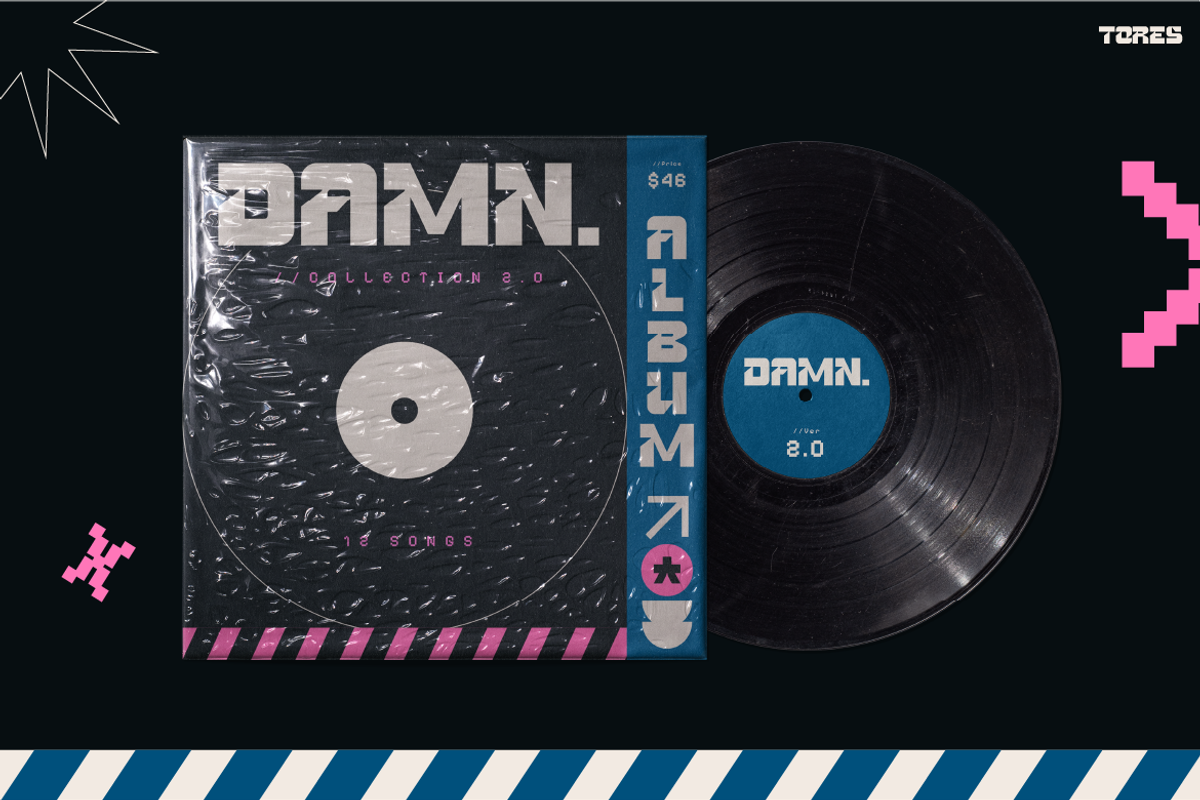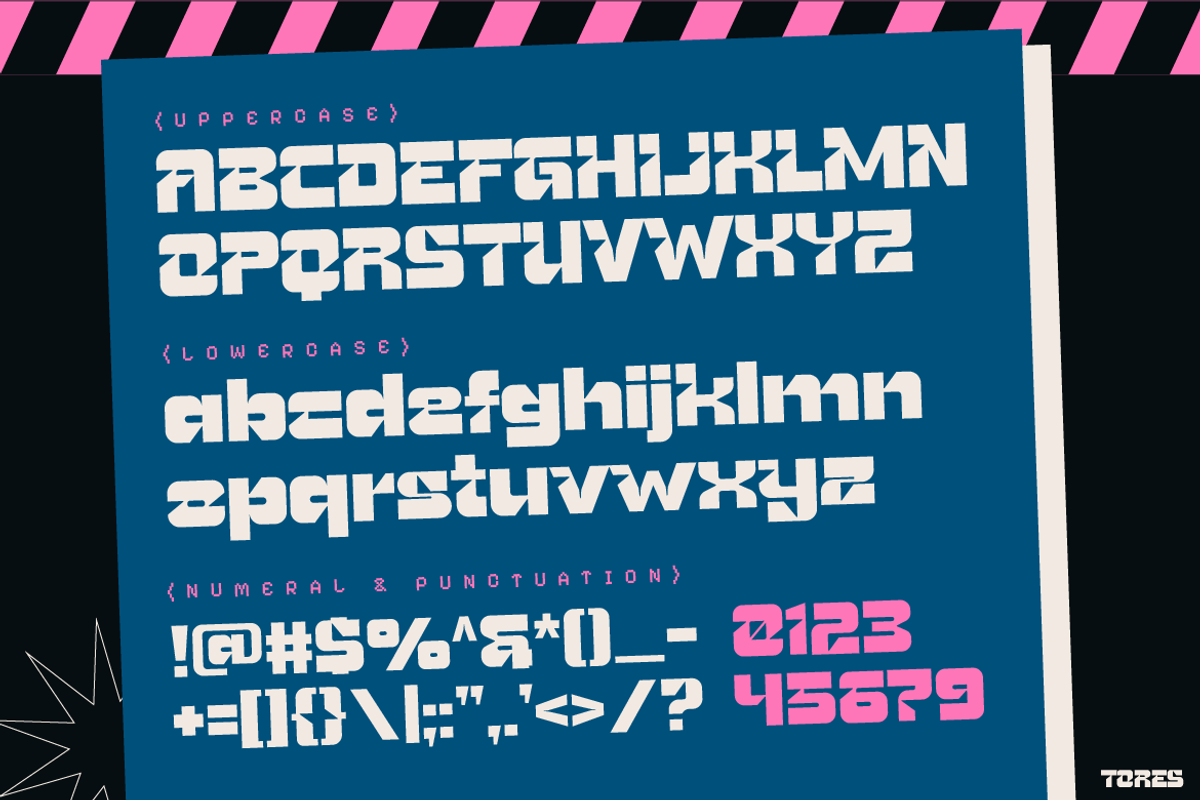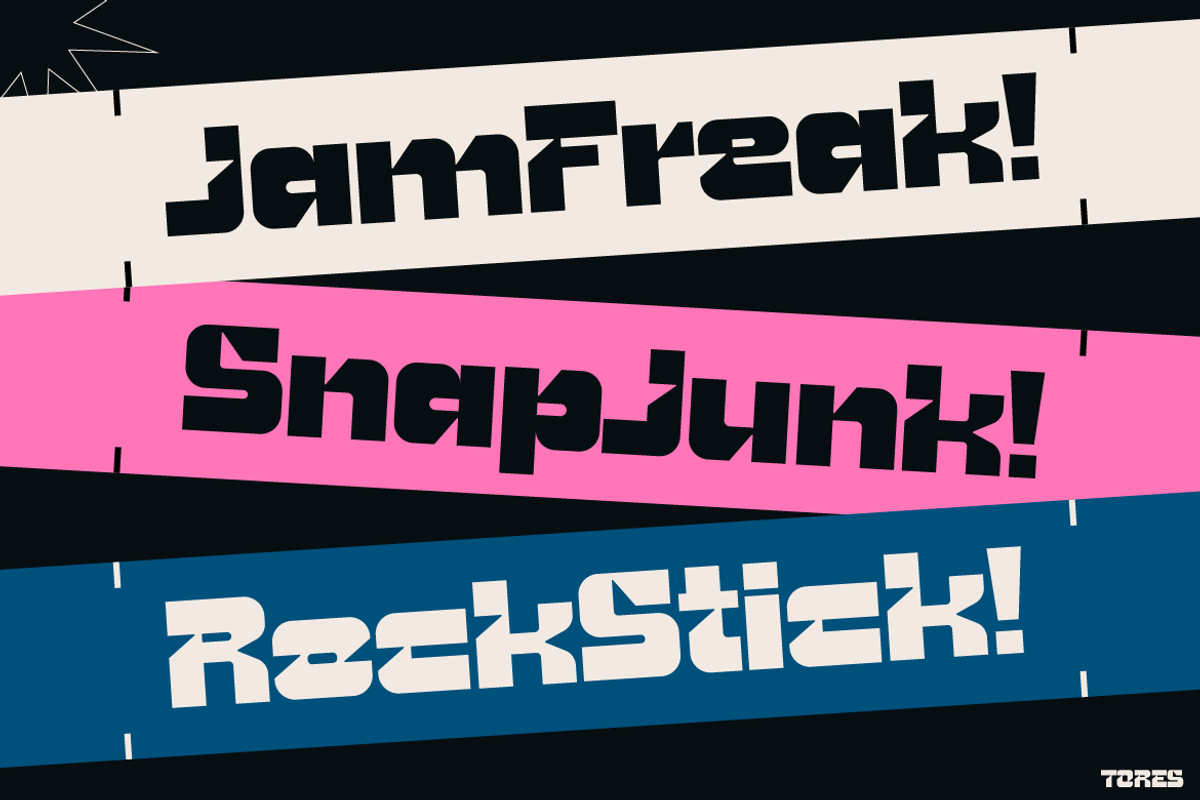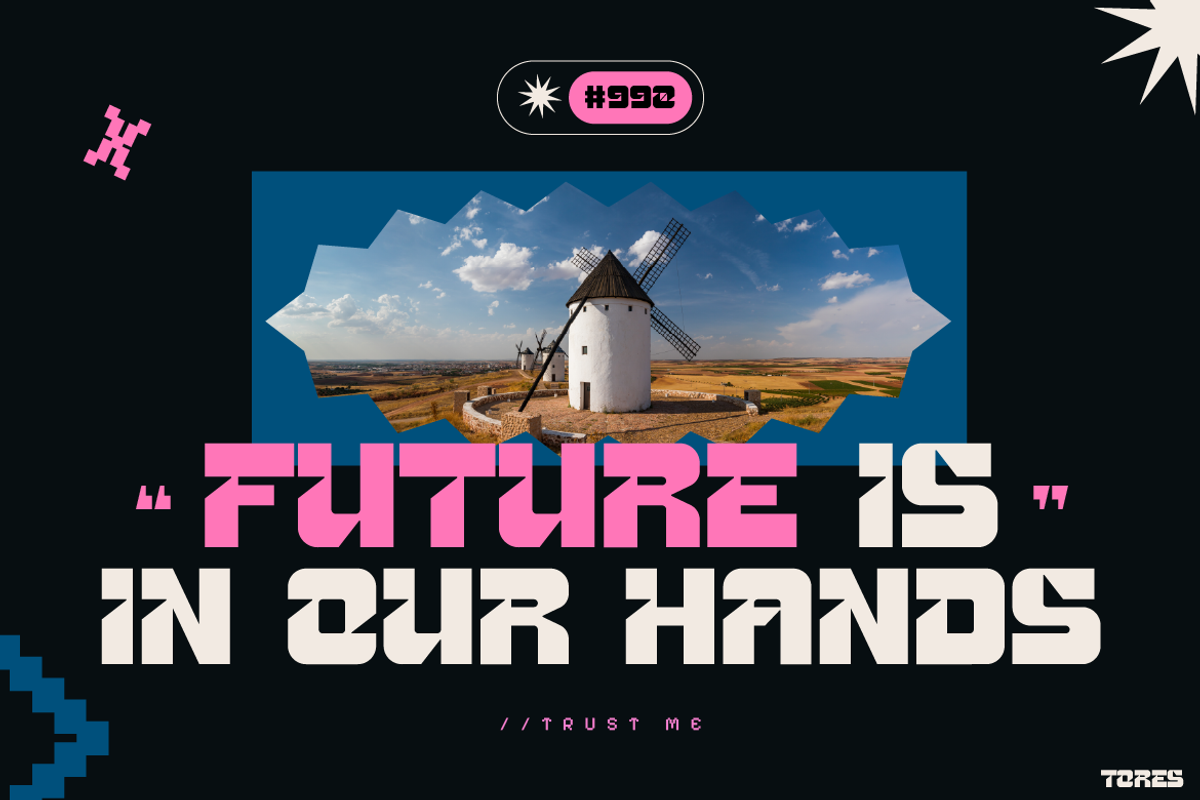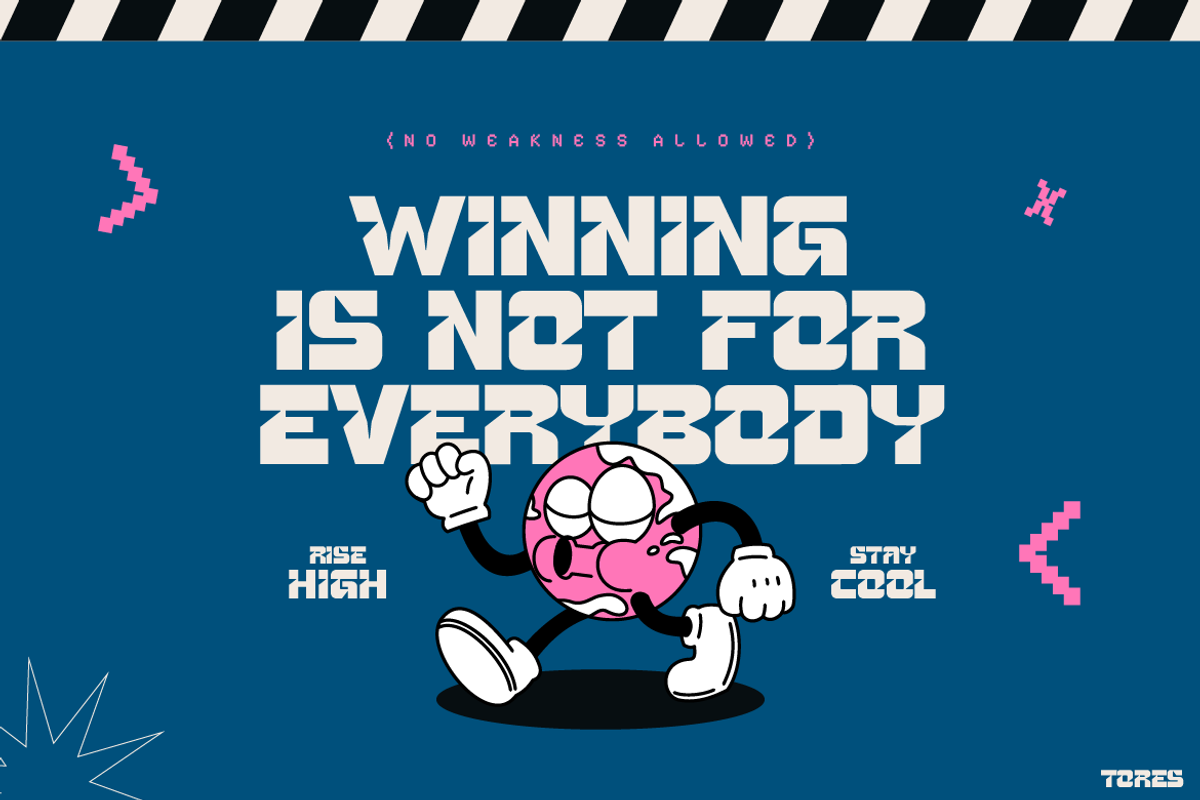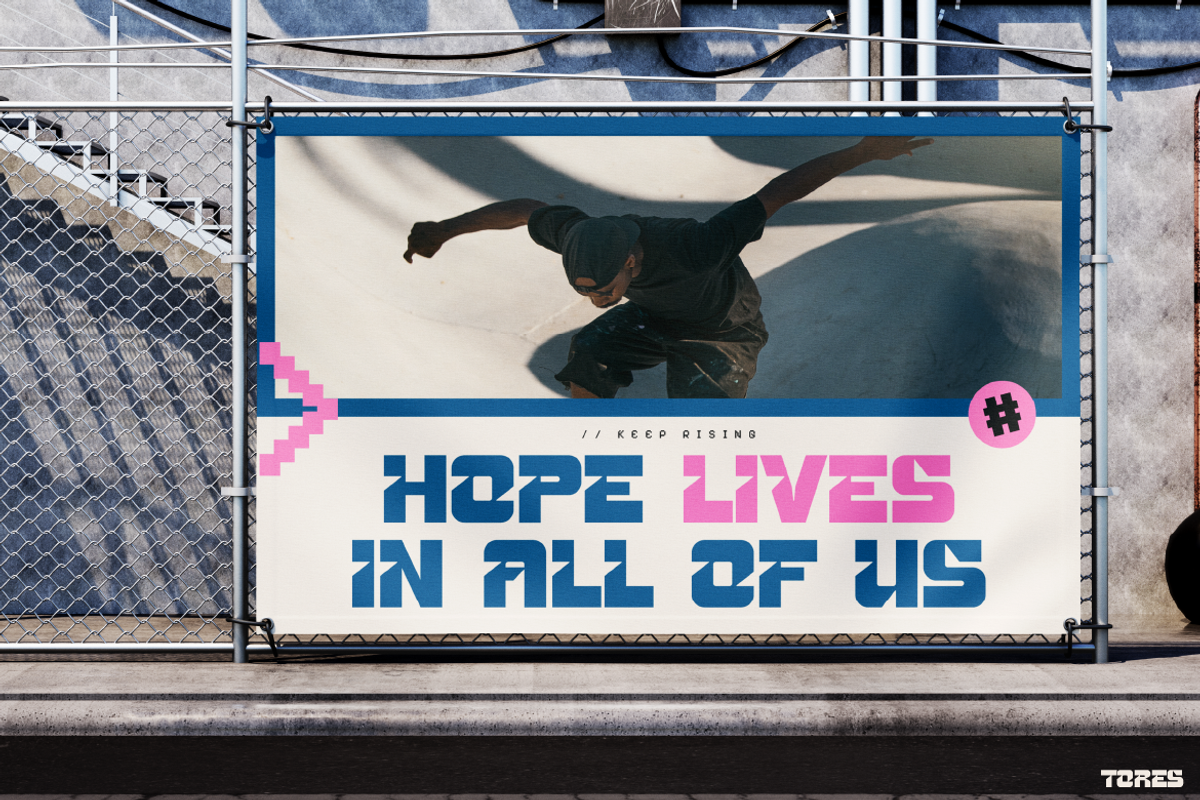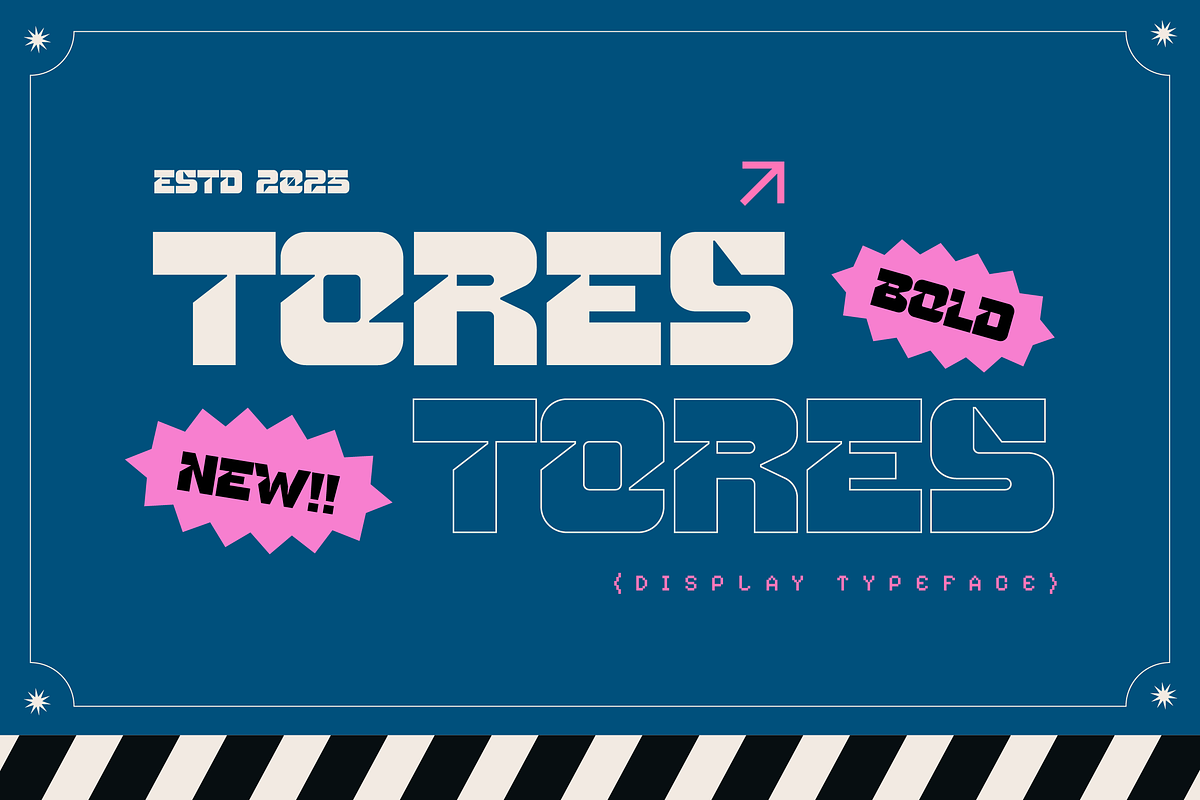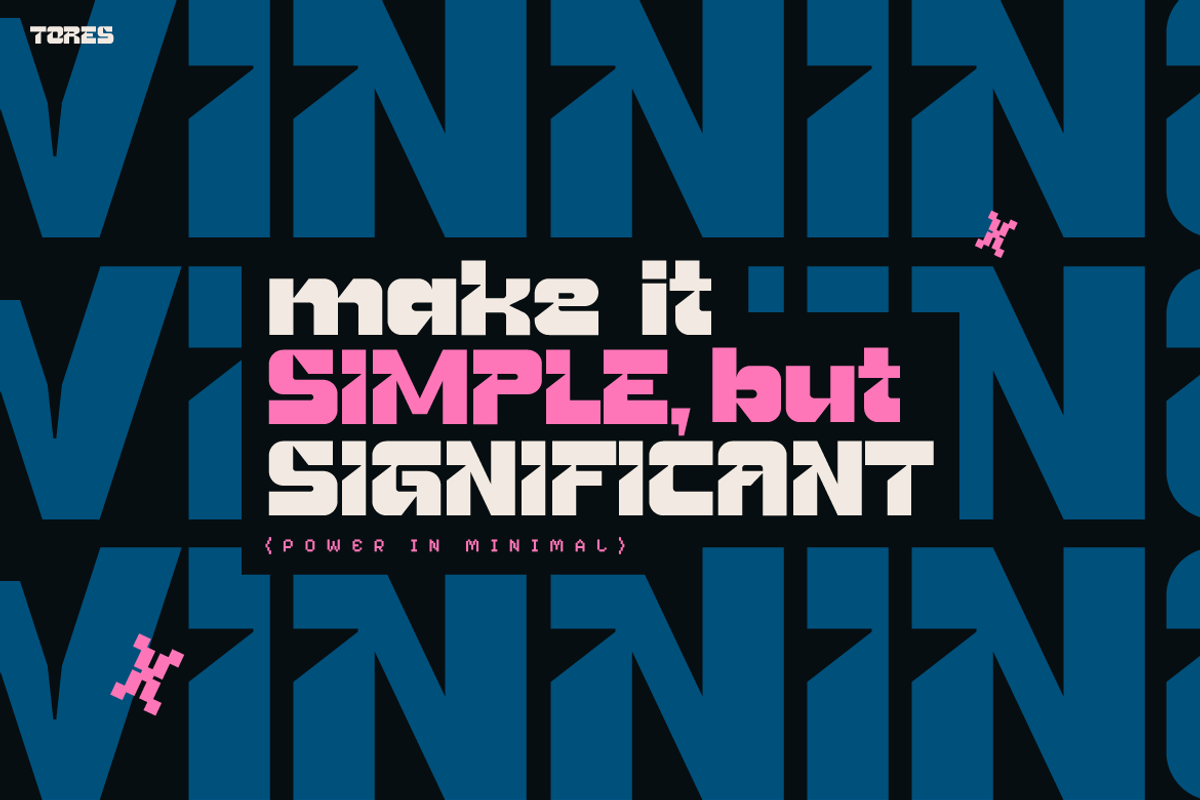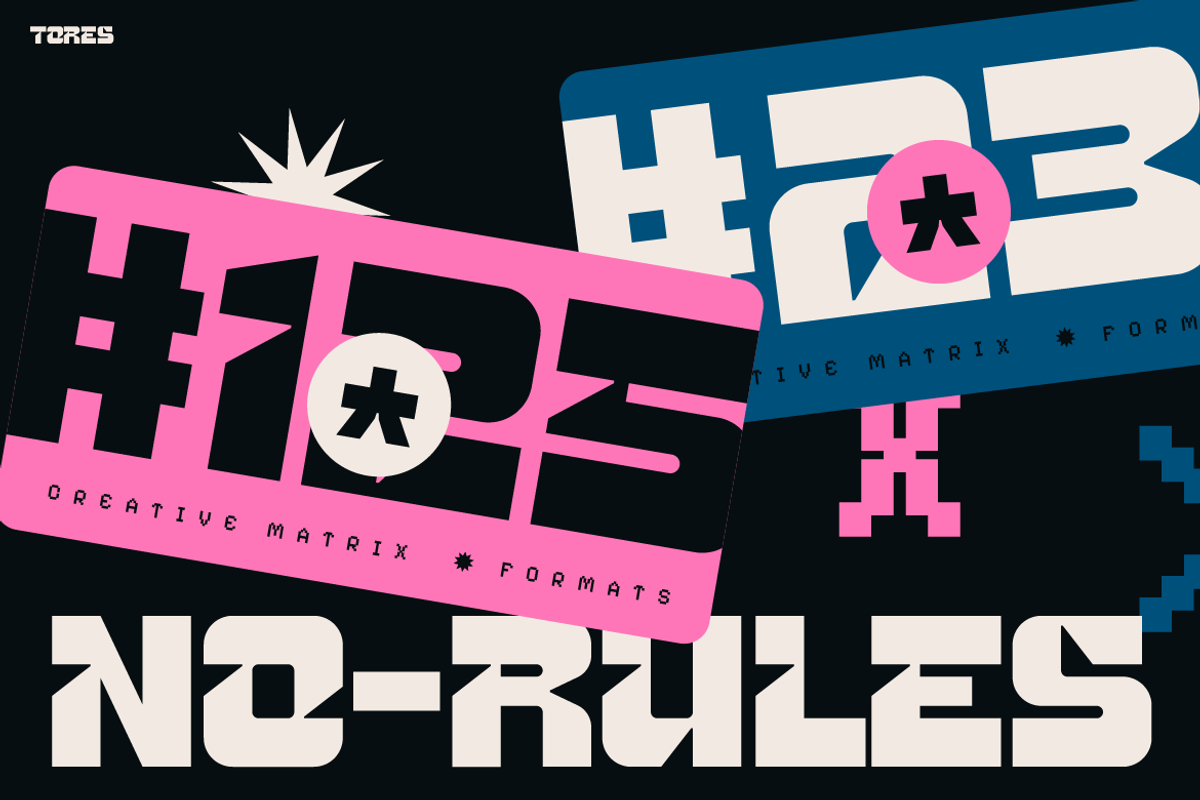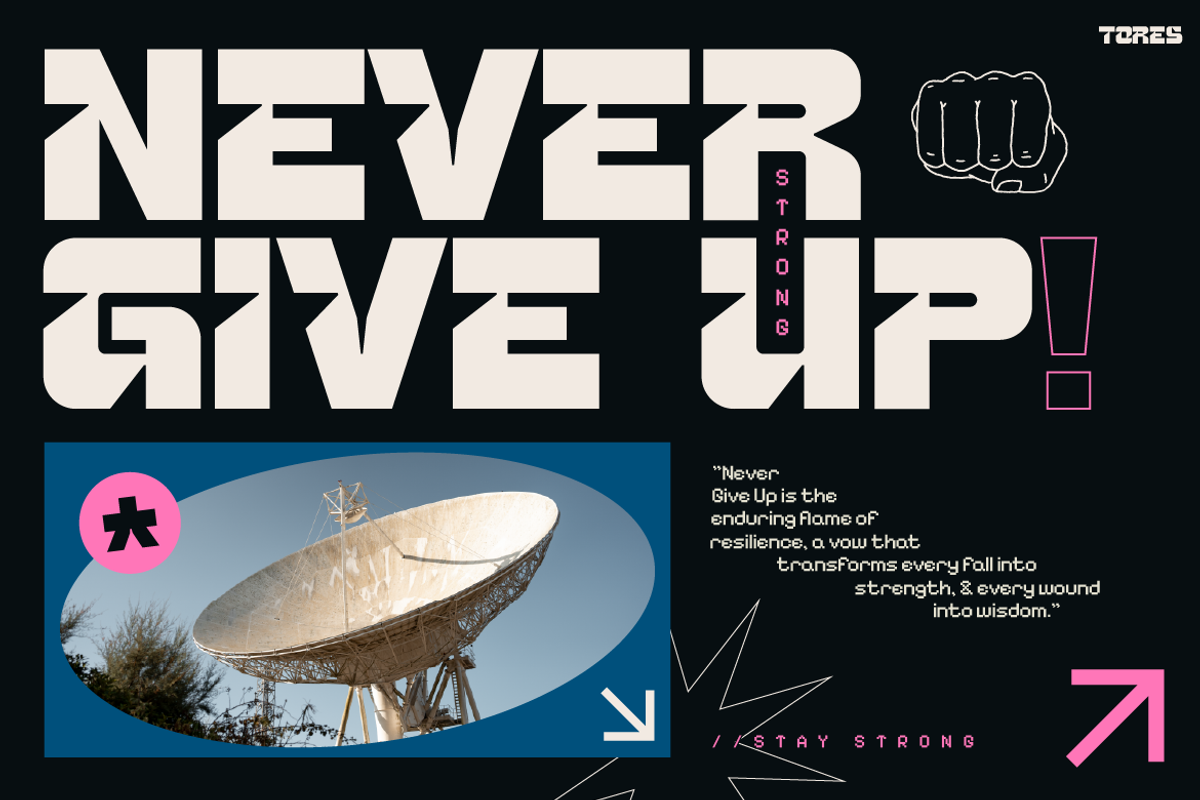
TORES
Instagram Font TORES – Bold, Modern & Eye-Catching
Instagram Font TORES is a unique display typeface that blends futuristic aesthetics with bold street-inspired energy. Its geometric shapes, strong lines, and edgy details make every word stand out with confidence. Moreover, this font combines a modern futuristic vibe with playful urban character, so it becomes perfect for both digital and print. Whether you’re crafting motivational quotes, posters, or social media graphics, Instagram Font TORES ensures a strong visual impact that makes your design unforgettable.